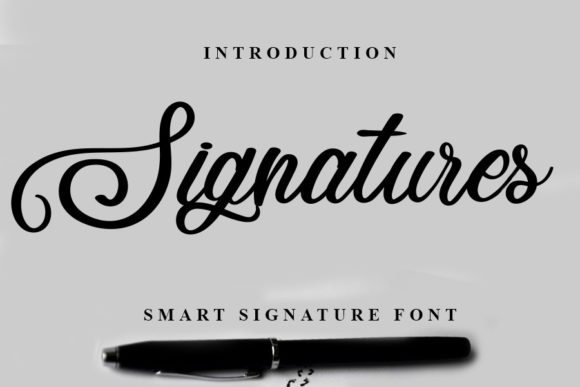
Step into the world of Signatures Font, a captivating and timeless handwritten font that will leave you breathless. Its elegant strokes and graceful curves bring a touch of sophistication and charm to any project, making it the perfect choice for business cards, branding, and personal projects alike.
With Signatures Font, you have the power to transform your words into works of art. Its carefully crafted characters exude a sense of professionalism and class, ensuring that your brand stands out from the crowd. Whether you're creating logos, marketing materials, or simply adding a personal touch to your documents, Signatures Font will elevate your designs to new heights.
Immerse yourself in the beauty of Signatures Font and let your creativity run wild. Its versatile style effortlessly complements a wide range of projects, from sleek and modern designs to whimsical and playful creations. The possibilities are endless, and the only limit is your imagination.
Elevate your projects with the timeless elegance of Signatures Font. Embrace its enchanting charm and let your designs shine brighter than ever before. Download Signatures Font today and embark on a journey of creative exploration.